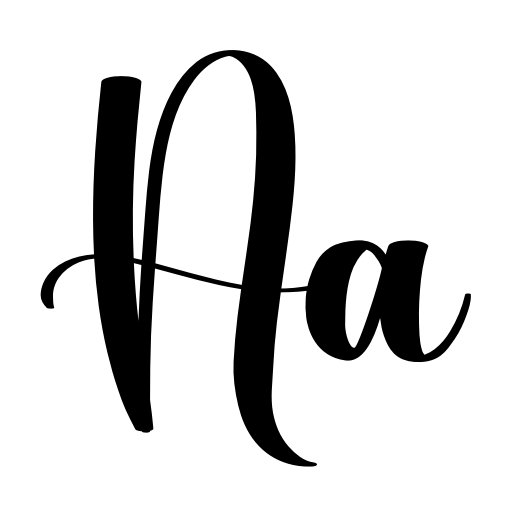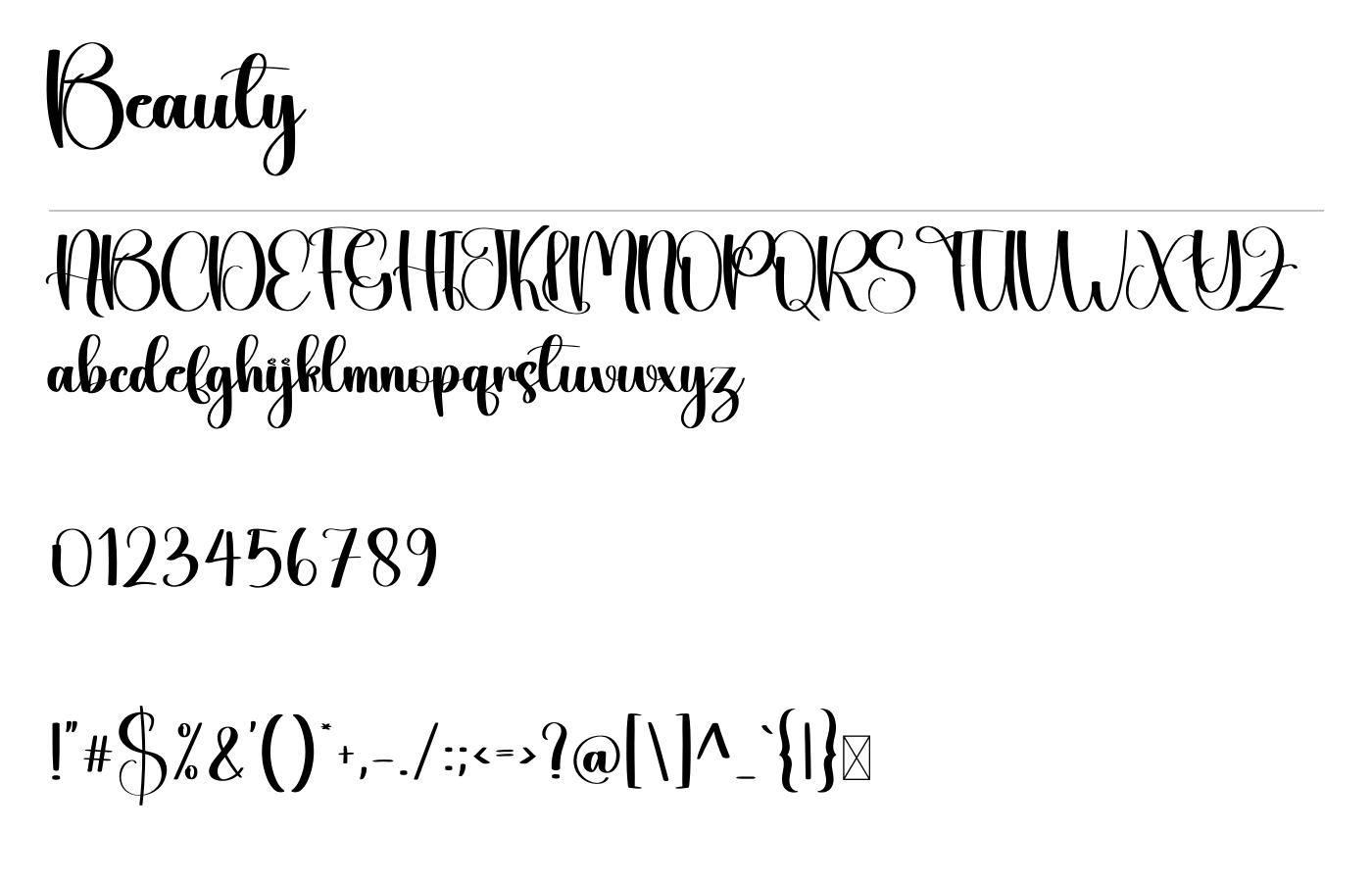
Beauty Font is a decorative script typeface that combines elegant, flowing curves with playful, refined strokes. Its tall, narrow letterforms feature high contrast and graceful swashes, making it perfect for luxury branding, wedding invitations, and stylish headlines that need a touch of sophistication and charm. This font’s distinctive, artistic style works best where personality and flair are desired, adding a sense of beauty and elegance to any design.
Beauty Font
About Beauty Font